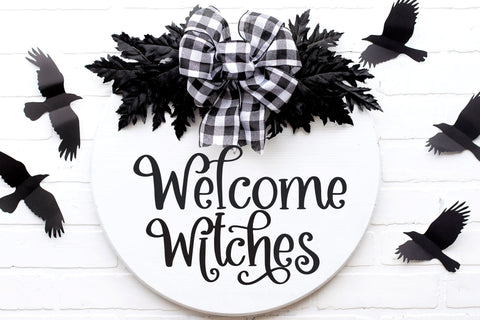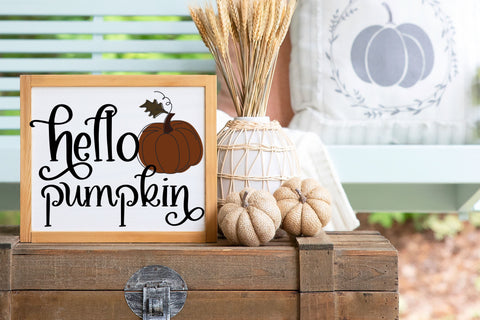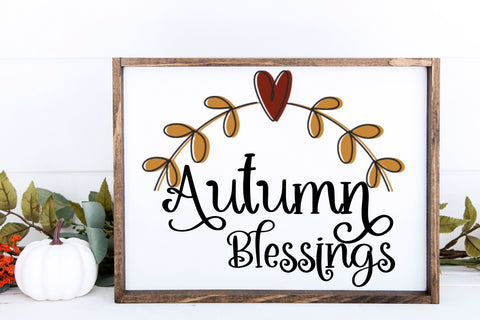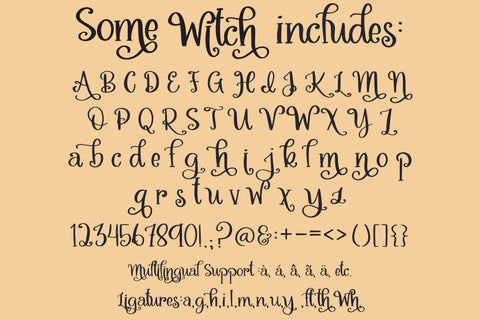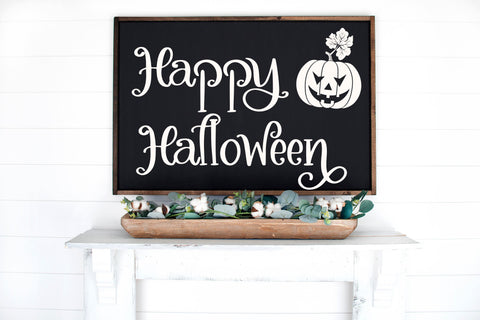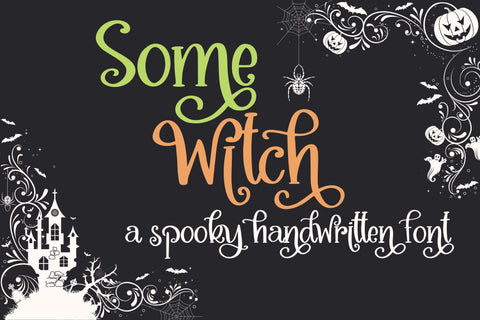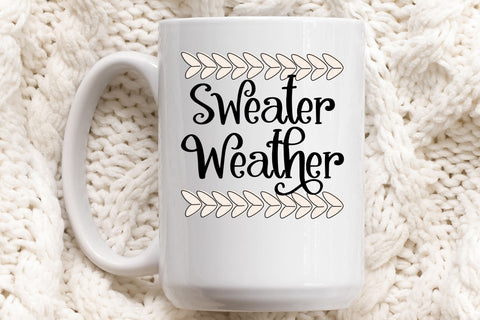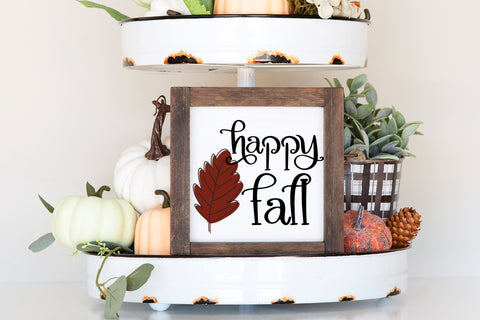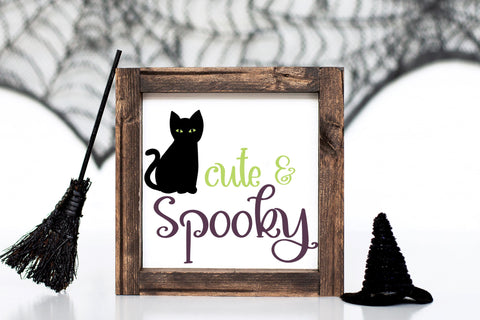
Some Witch, Cute Halloween Handwritten Font for Cricut, Fun Cursive Handwriting
Introducing Some Witch, our witchy Halloween Handwritten Font, a must-have for all your spooky and festive designs! Our script font is compatible with Cricut SVGs, Goodnotes, Procreate, and many other programs. Embrace the enchanting spirit of the season with our cute Halloween fonts, featuring bewitching swirls and magical strokes that will cast a spell on your creations. Whether you're designing invitations, party decor, or personalized gifts, this witch font will infuse your work with an irresistible flair. Get your hands on our Halloween Script Font and unlock endless possibilities for crafting delightful and hauntingly beautiful designs.